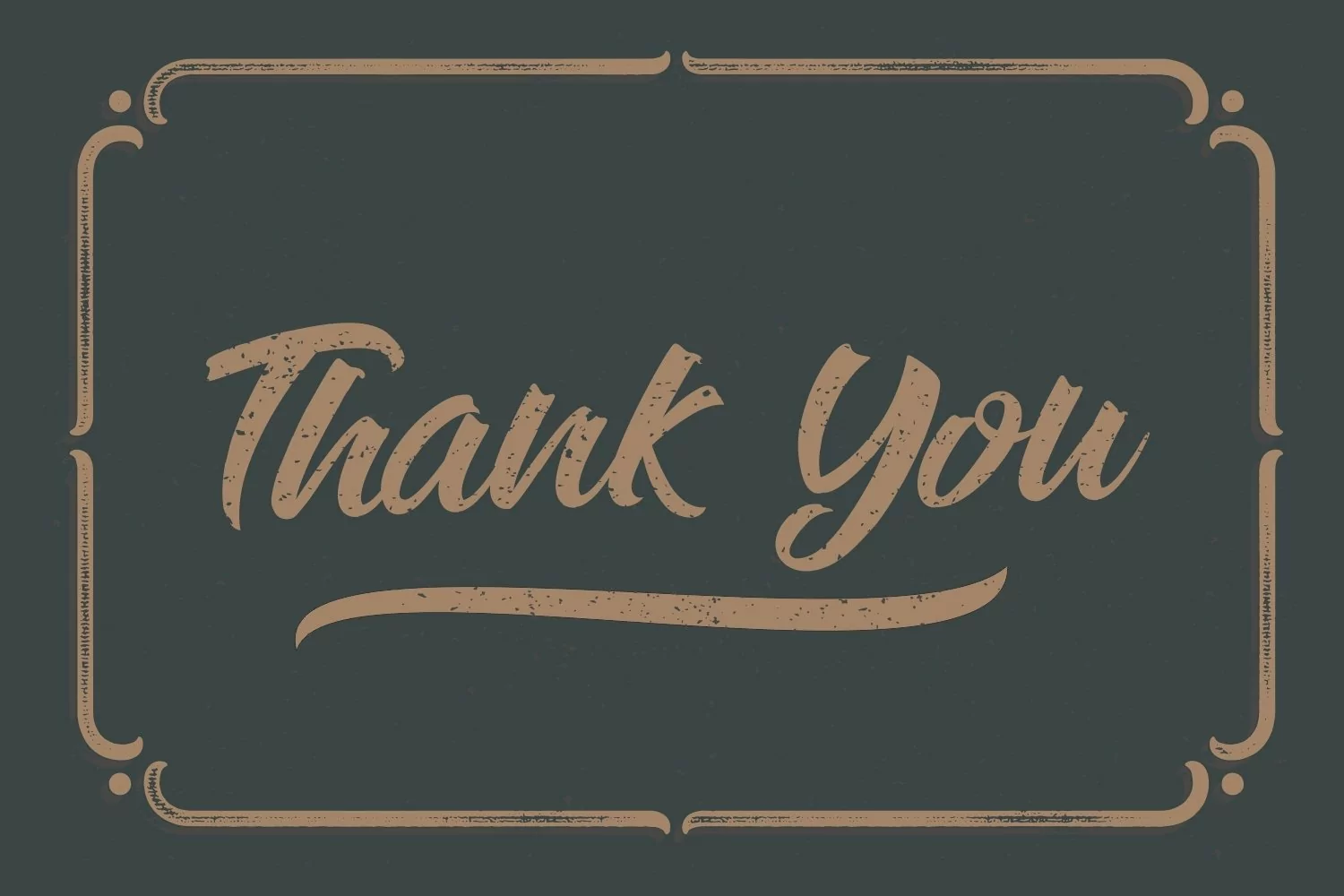
Rockstage Calligraphy Font is an incredibly distinct, delicate and timeless handwritten font. It looks stunning on wedding invitations, thank you cards, quotes, greeting cards, logos, business cards and every other design which needs a handwritten touch.